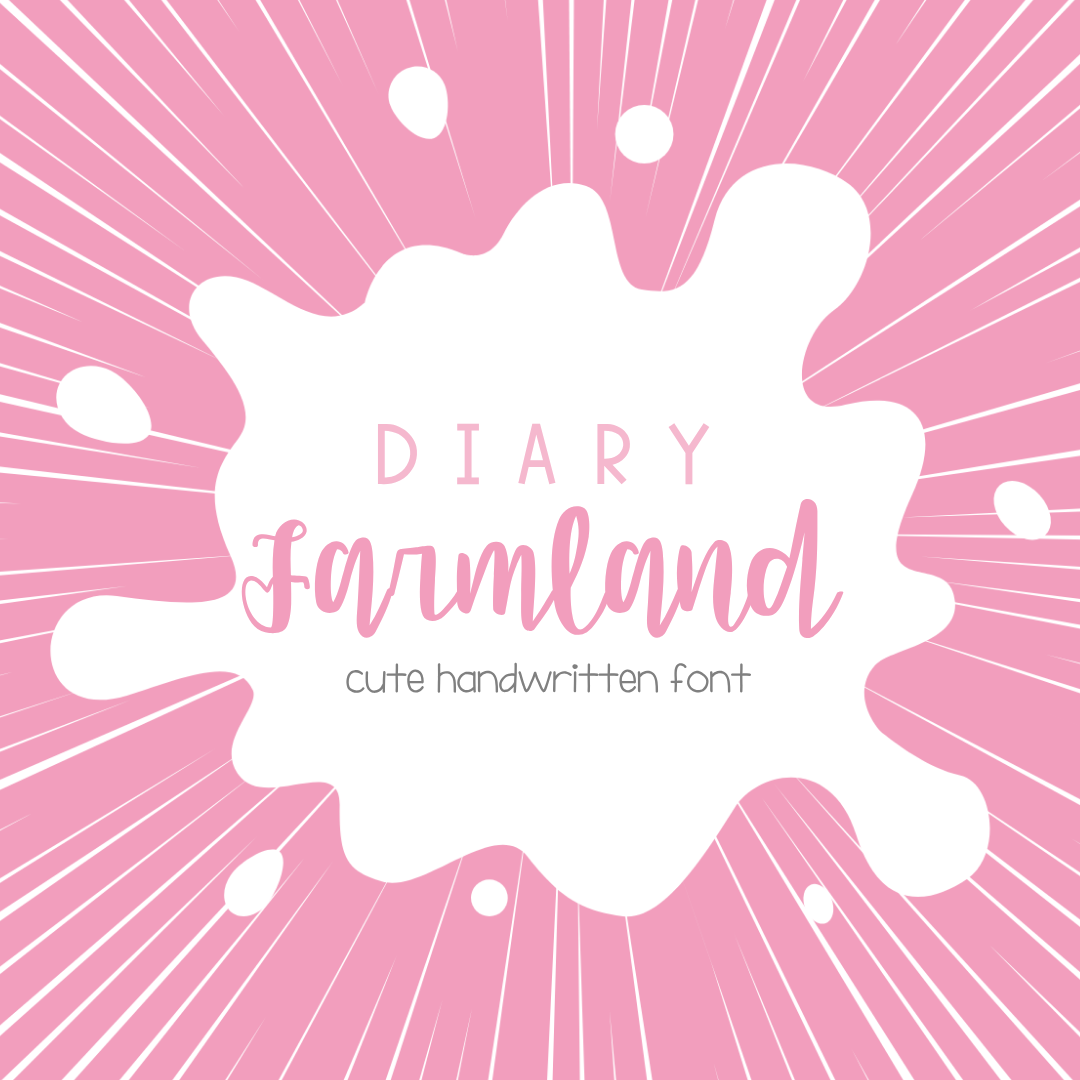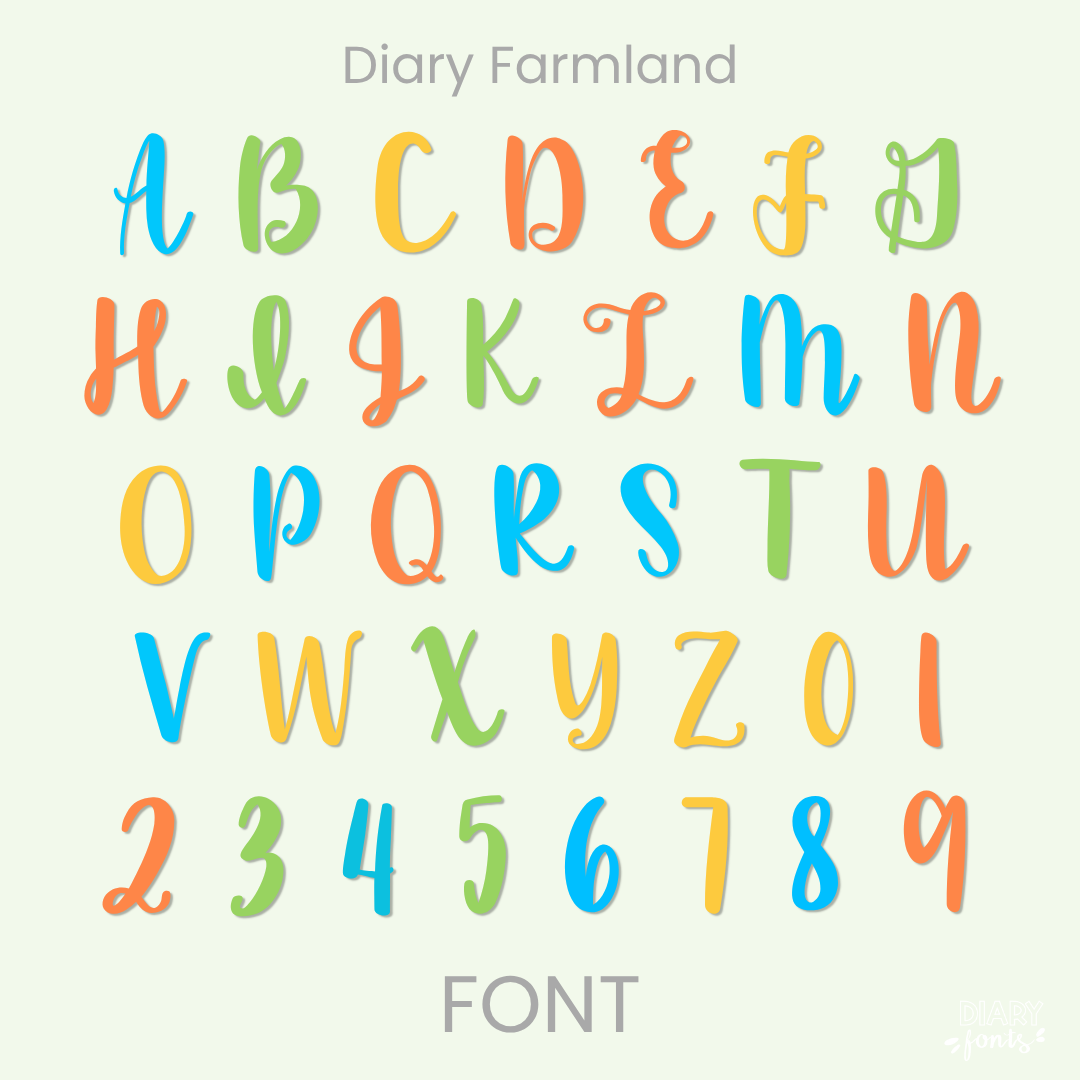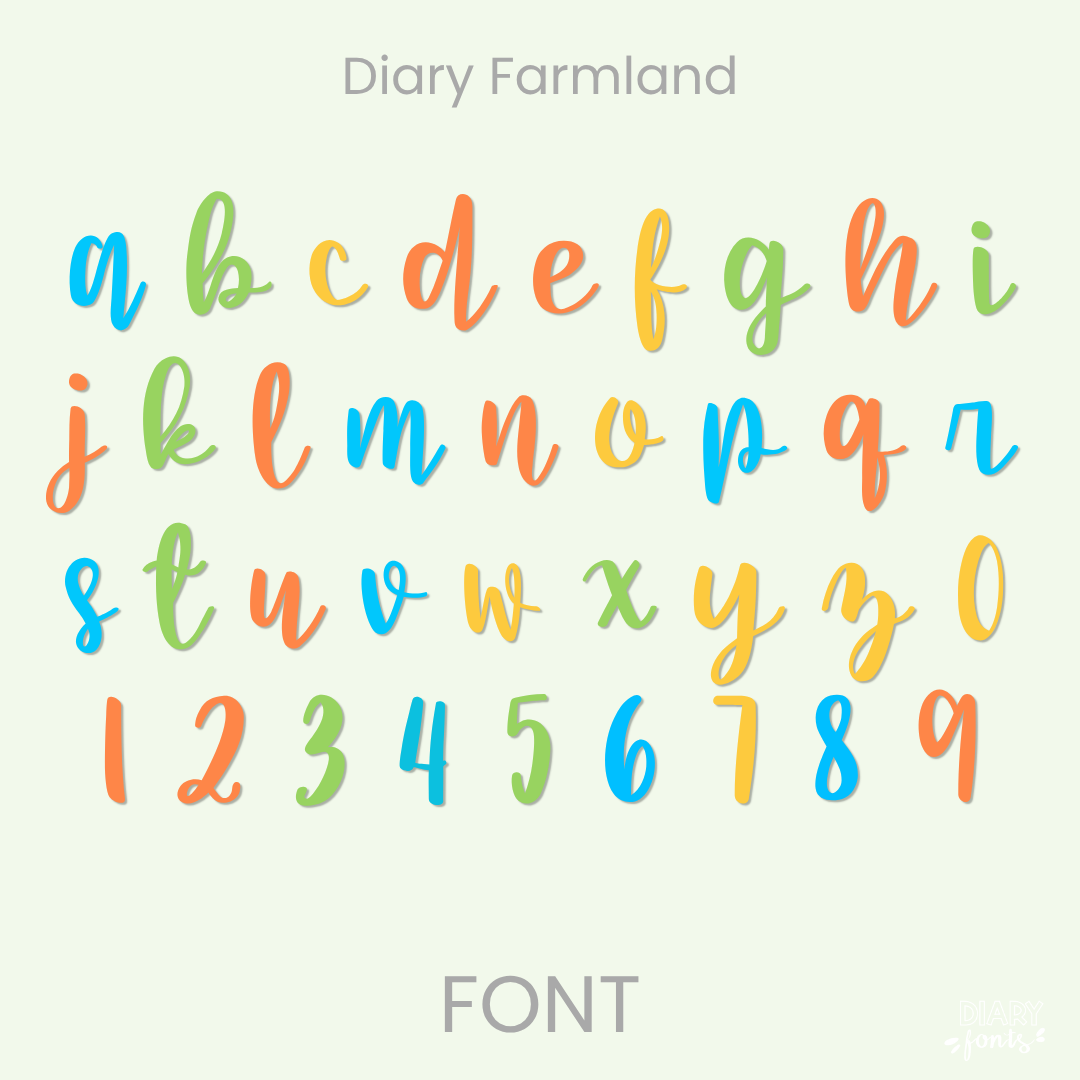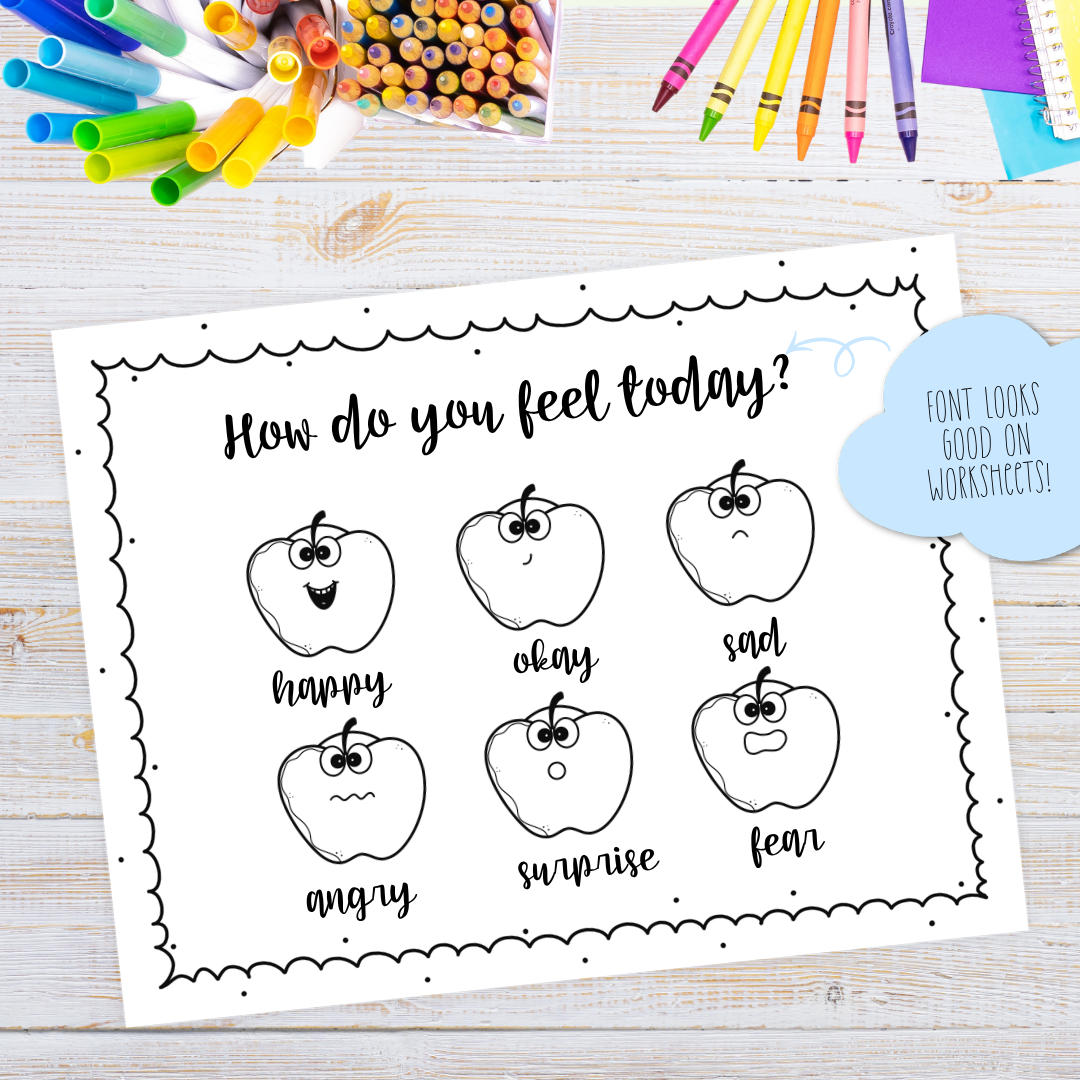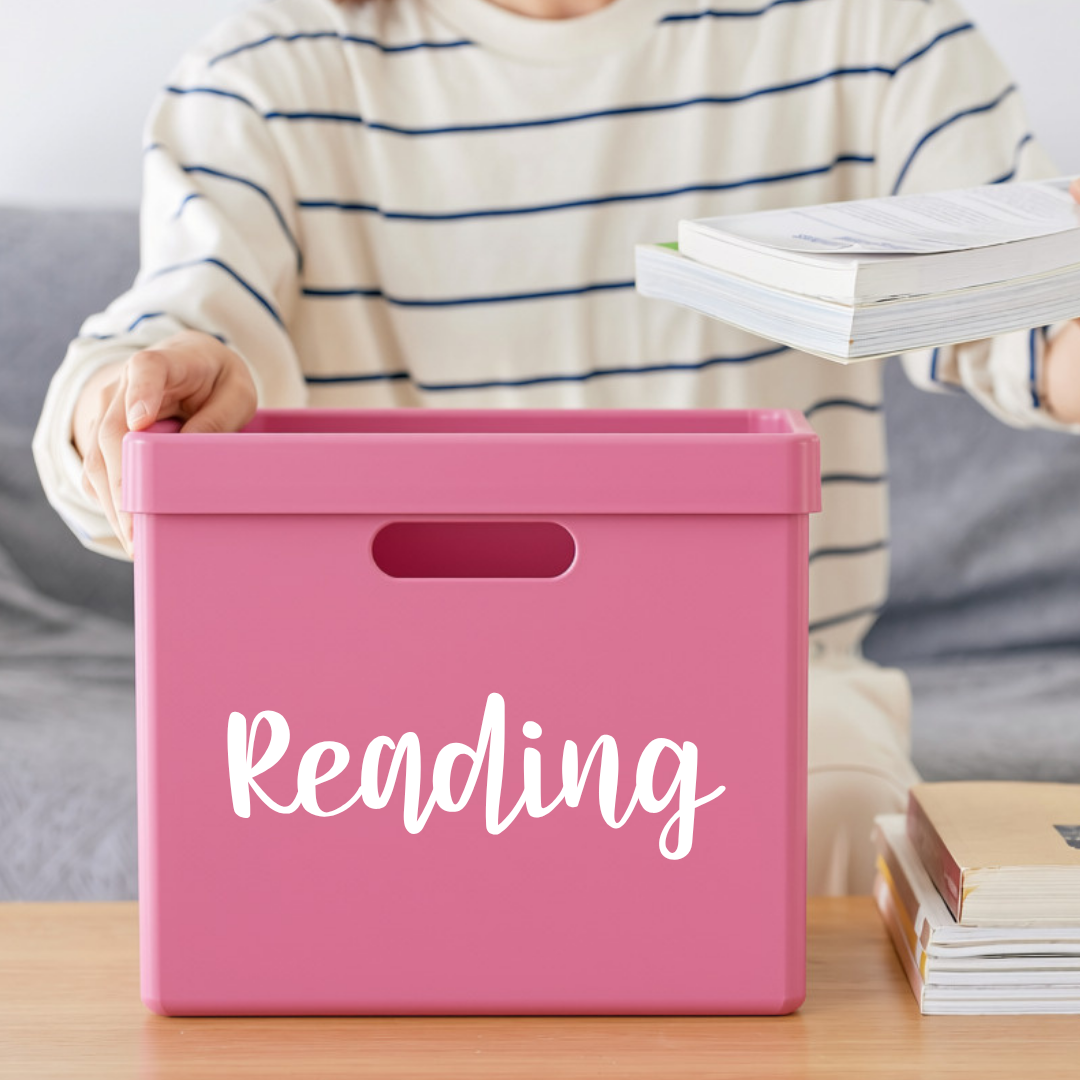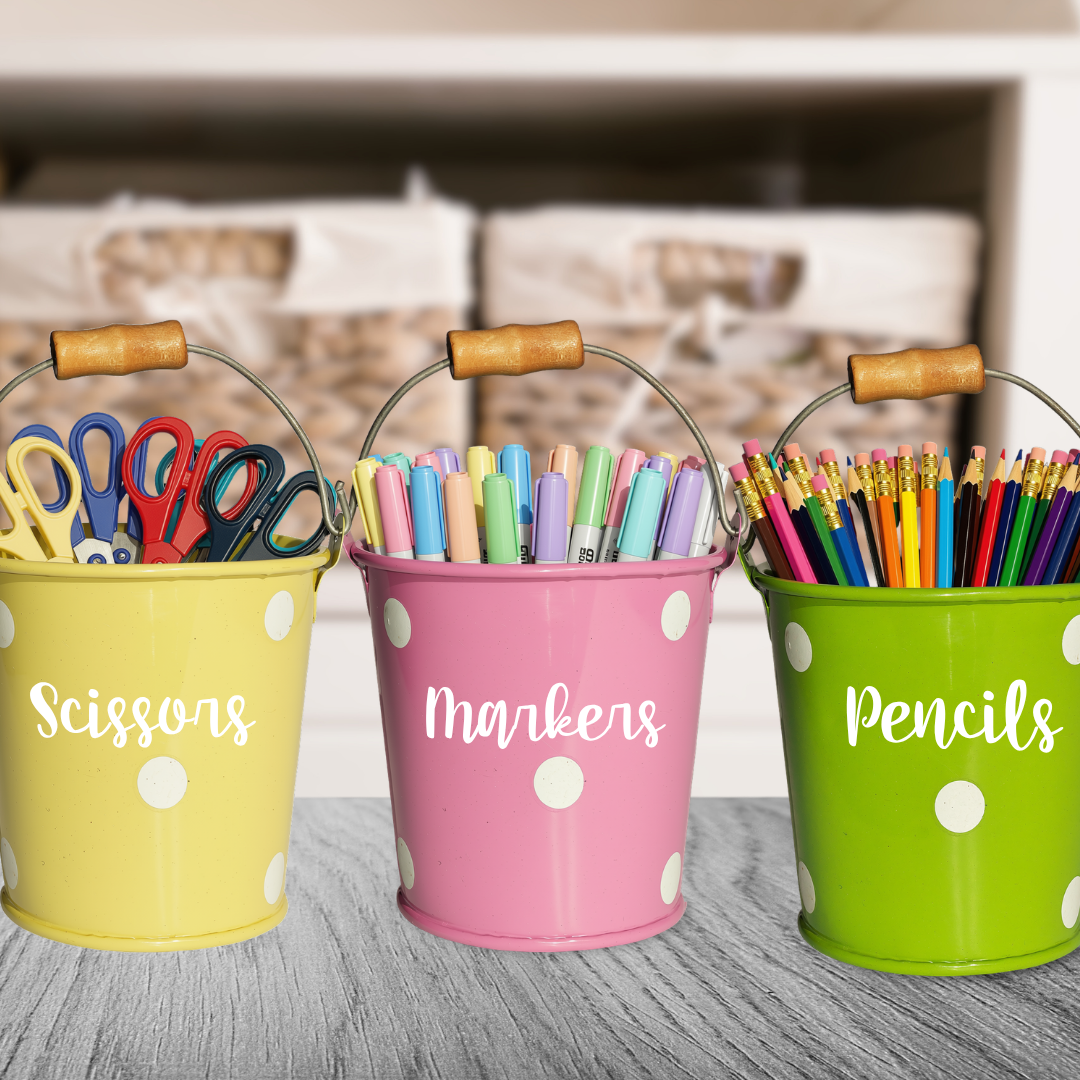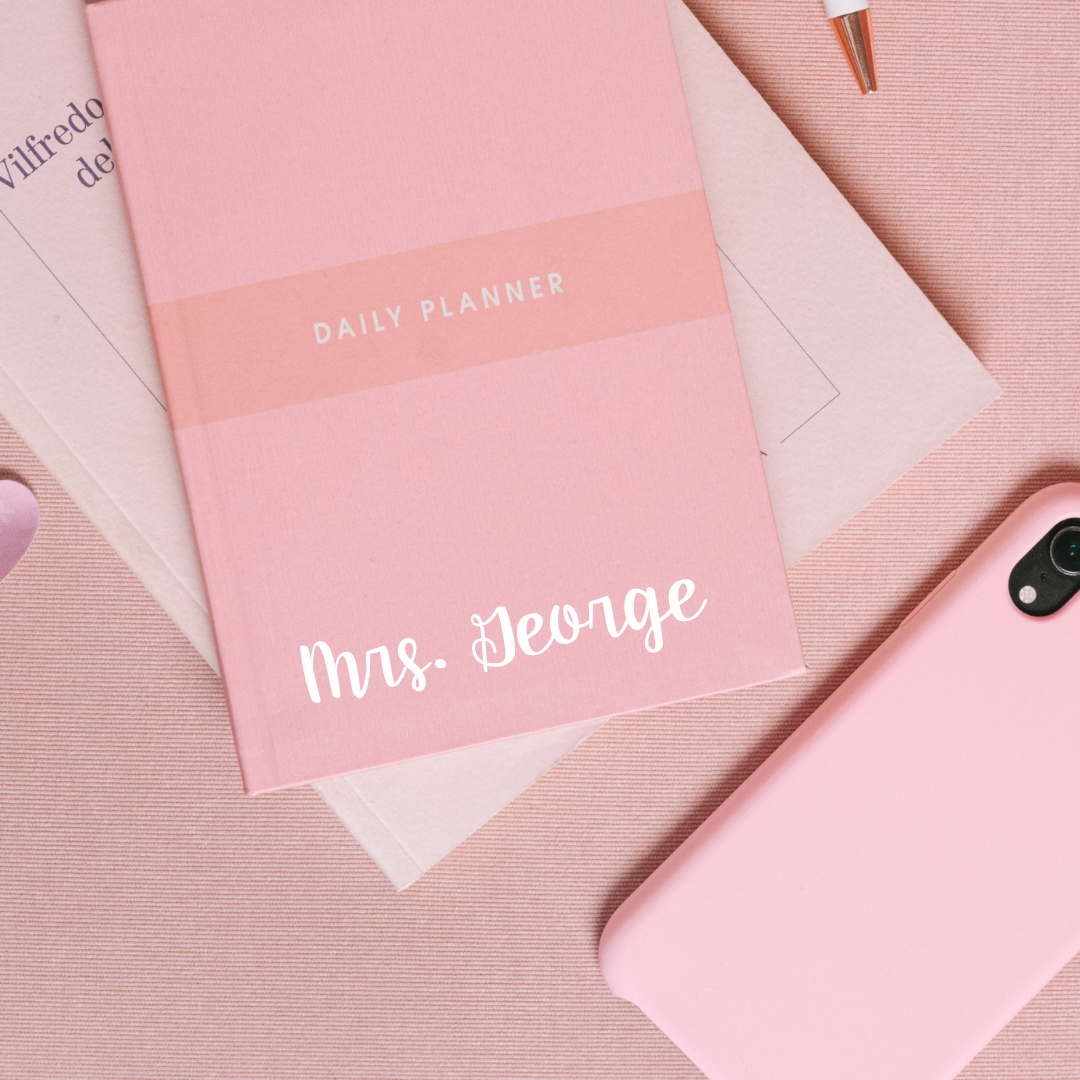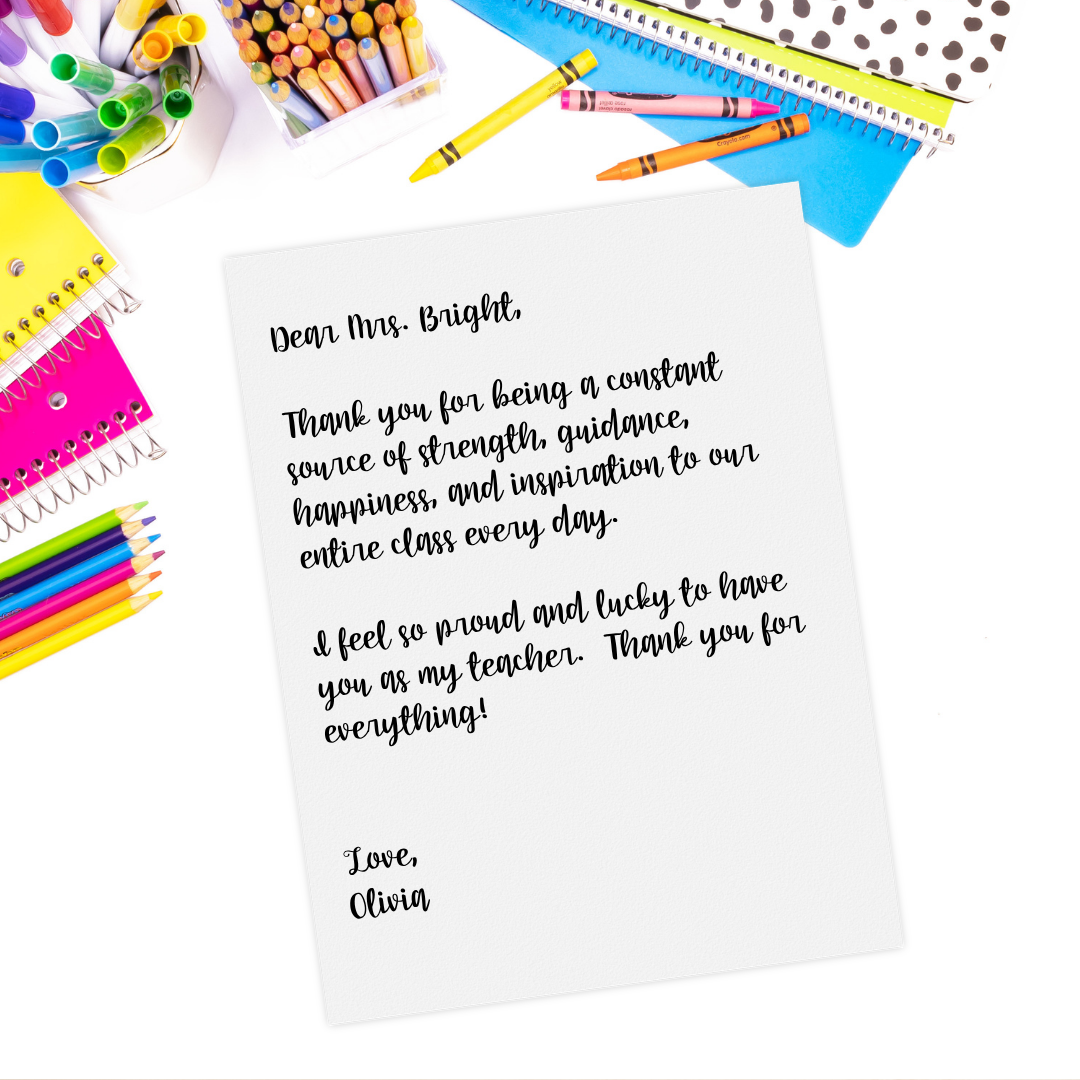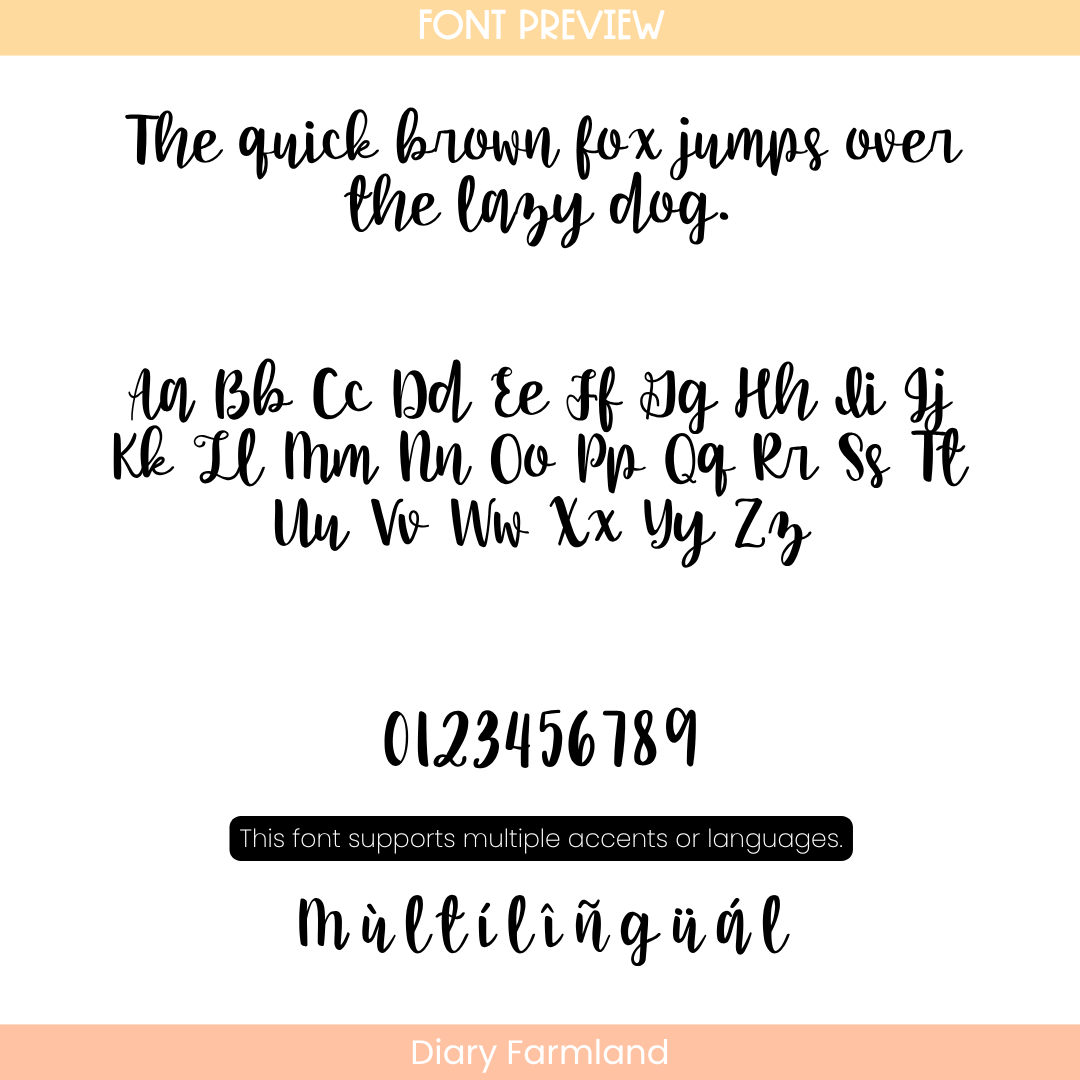
Diary Farmland – Calligraphy Font
Diary Farmland is that sweet, bouncy calligraphy script and playful handwritten teacher font you need to bring a rustic, cheerful, and beautifully hand-lettered touch to your classroom worksheets and morning slides.
If you’ve been looking for a go-to script font that has all the gorgeous elegance of modern calligraphy but keeps your resource layouts looking incredibly clean and legible, Diary Farmland is about to become your new absolute favorite design asset. This delightful typeface features a beautiful hand-drawn bounce with subtle variations in stroke thickness that mimic a real brush pen. Standing with a relaxed vertical posture and designed with plenty of breathing room between characters, it completely cuts out the background visual noise—giving you an exceptionally clear cursive script choice that your sweet students can read and follow with absolute ease.
It is an absolute dream choice for typing up warm seasonal worksheets, classroom bulletin board banners, morning meeting slides, decorative storage labels, and personalized teacher planner headers. Inside the download, you’ll get a full set of bouncy uppercase and lowercase script letters, matching elegant numbers, and multi-accent markings for complete multilingual support. It drops right into Canva, MS Office, or Adobe on your desktop, and pairs beautifully with Procreate and GoodNotes on your iPad. Whether you’re prepping daily activities for your own sweet classroom or designing a beautiful new commercial-use product line for your online teacher shop, this decorative display script adds a touch of confident, rustic style to your toolkit.